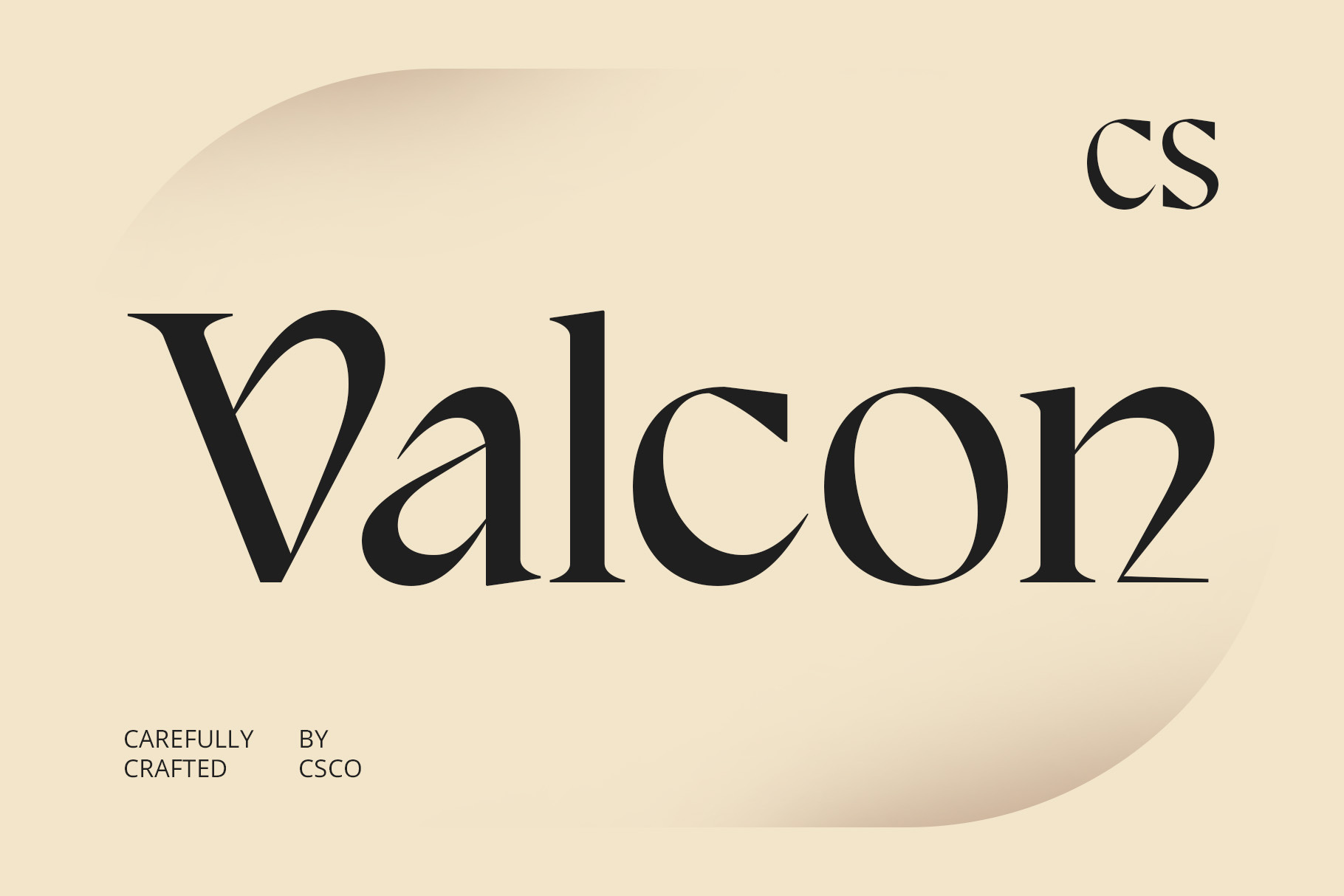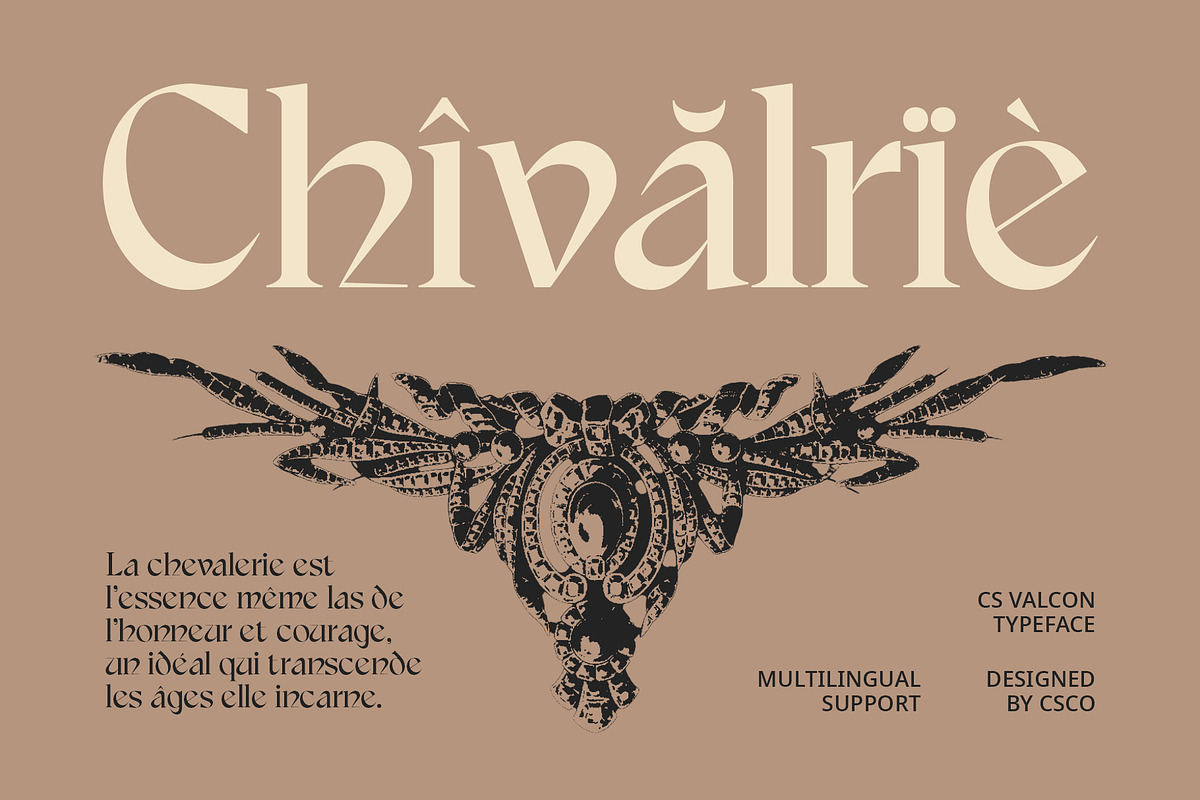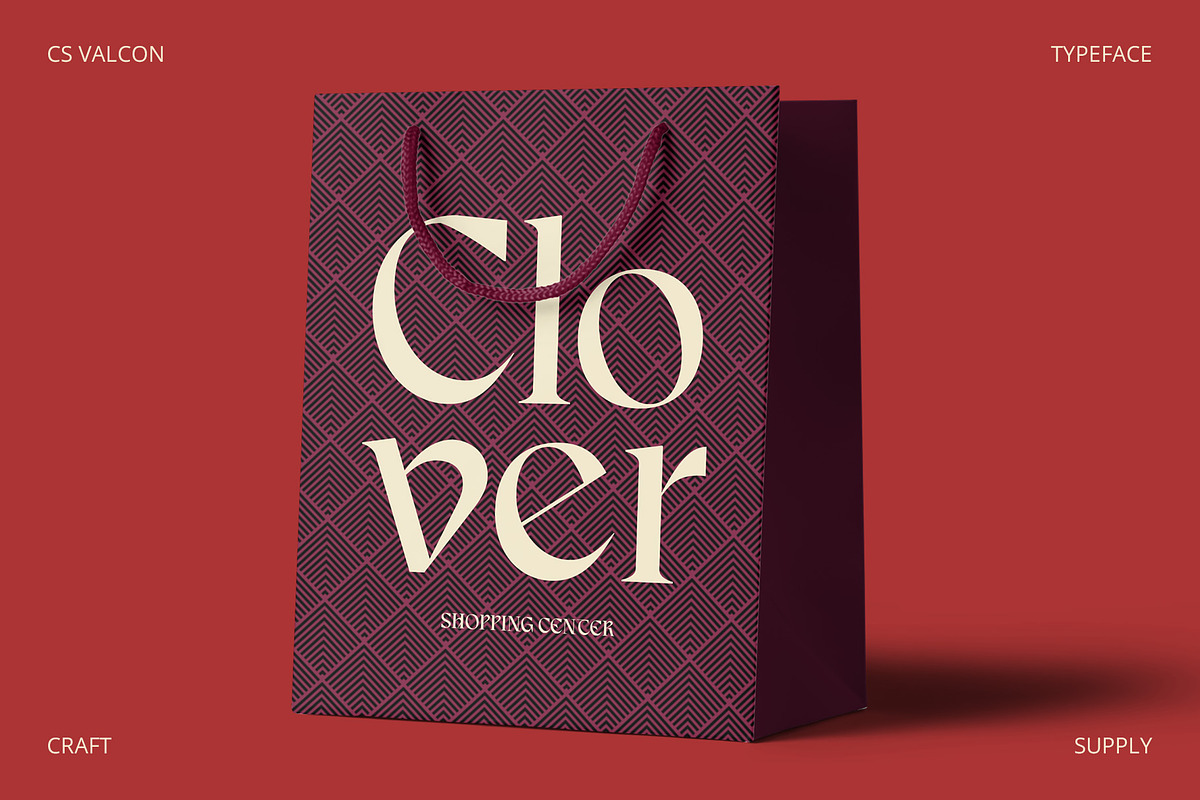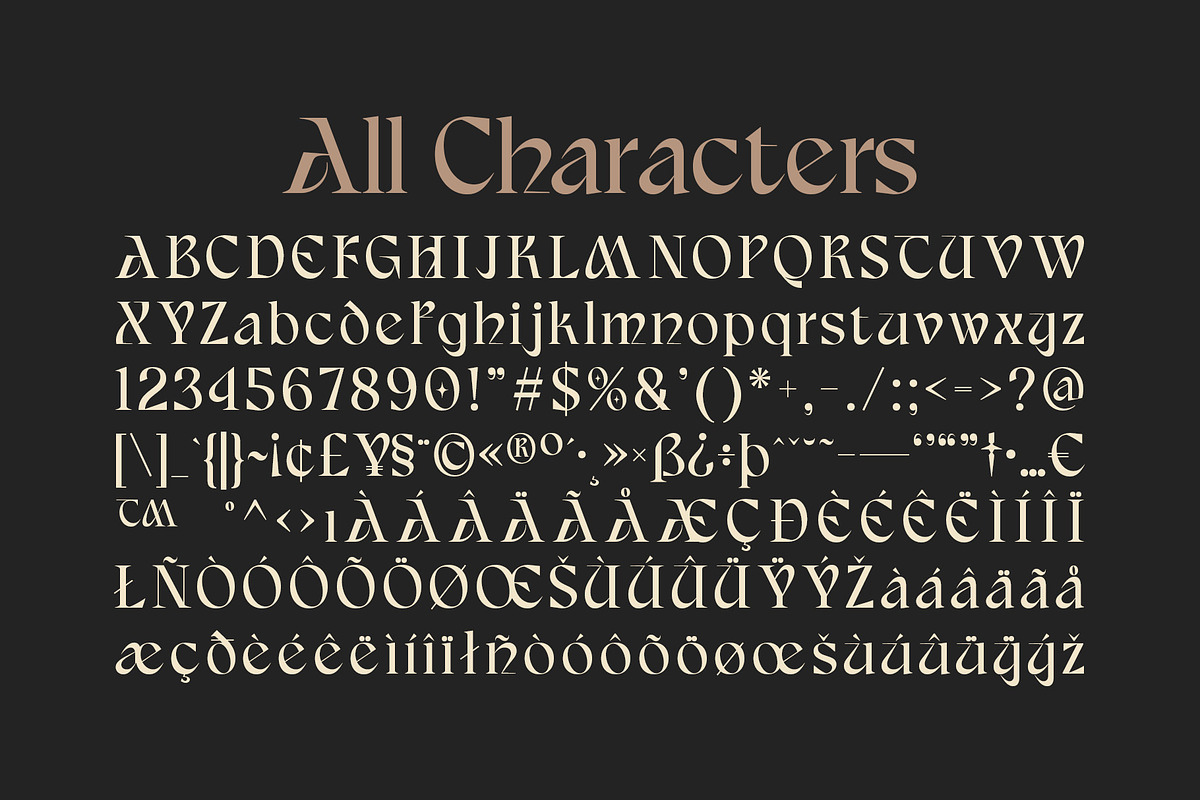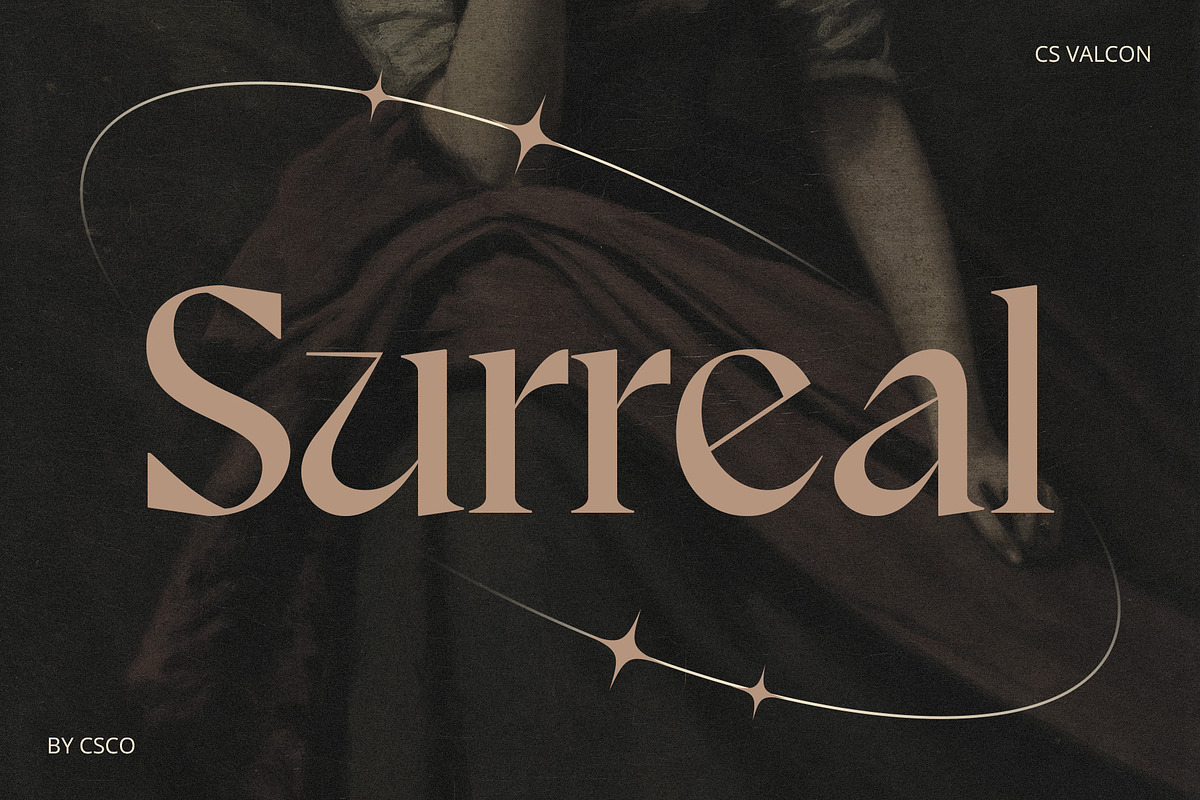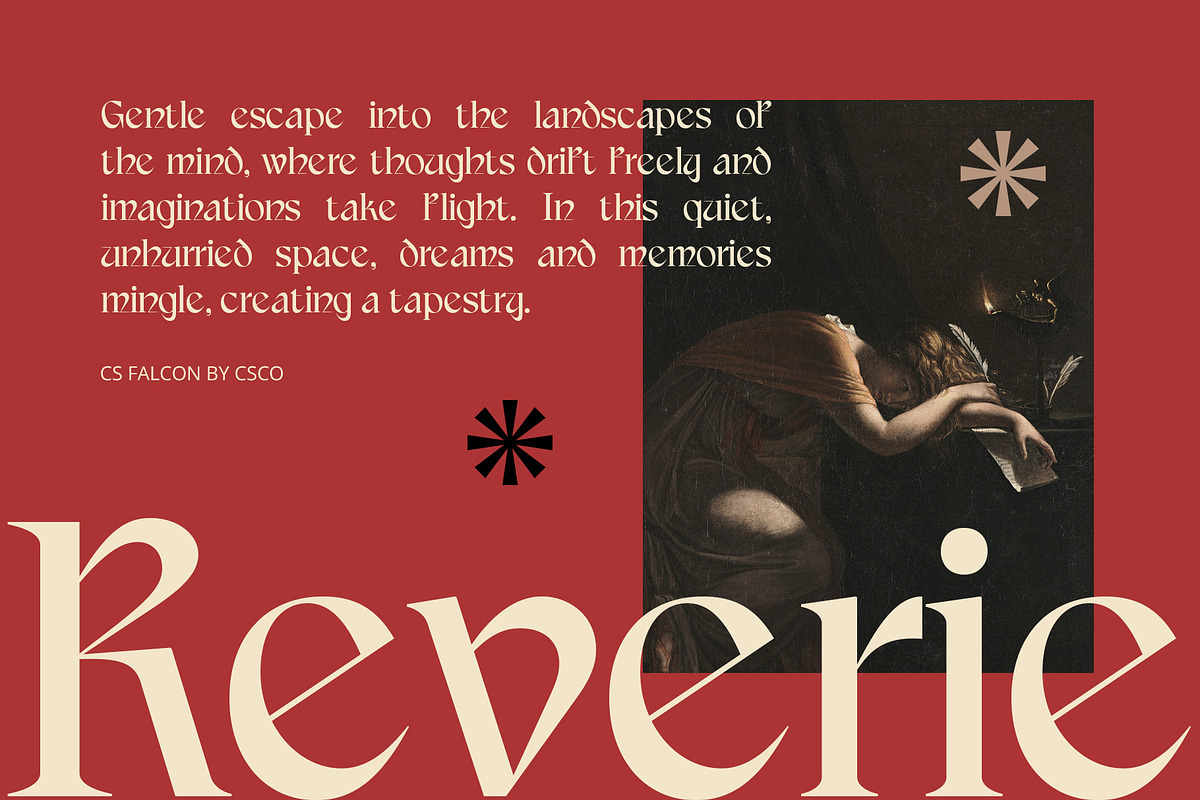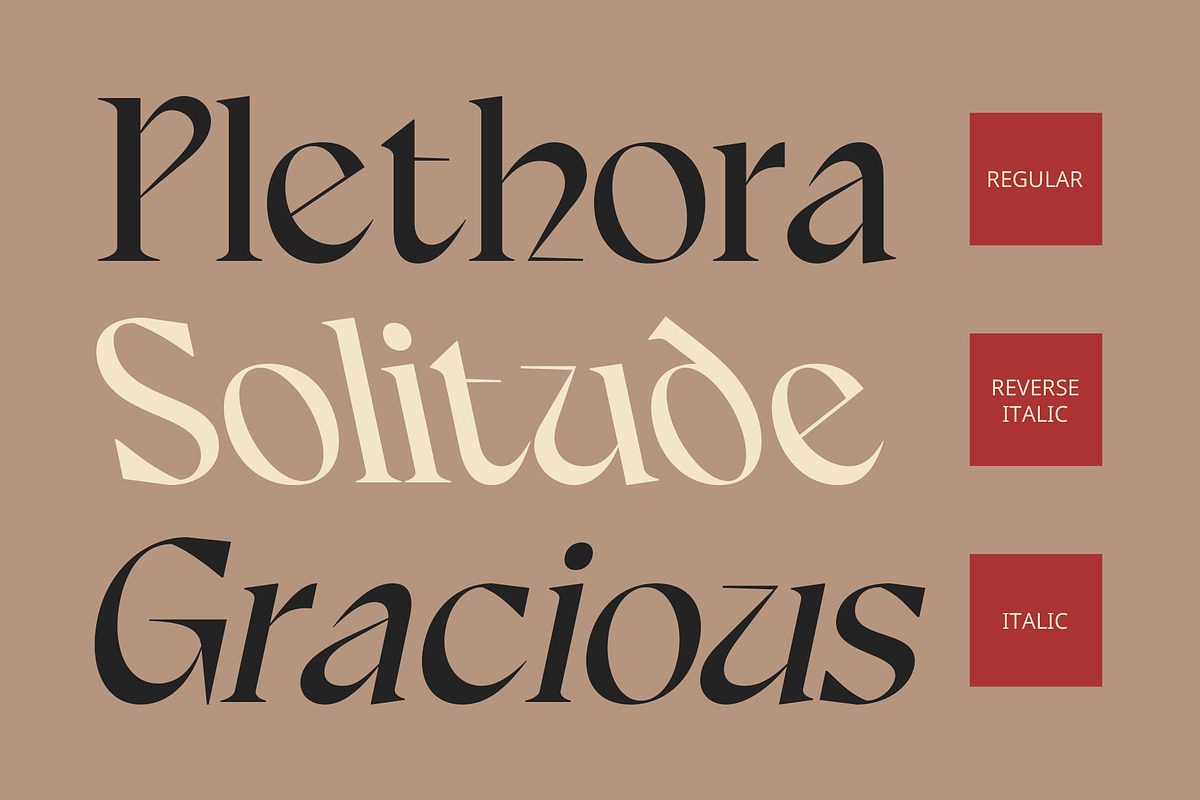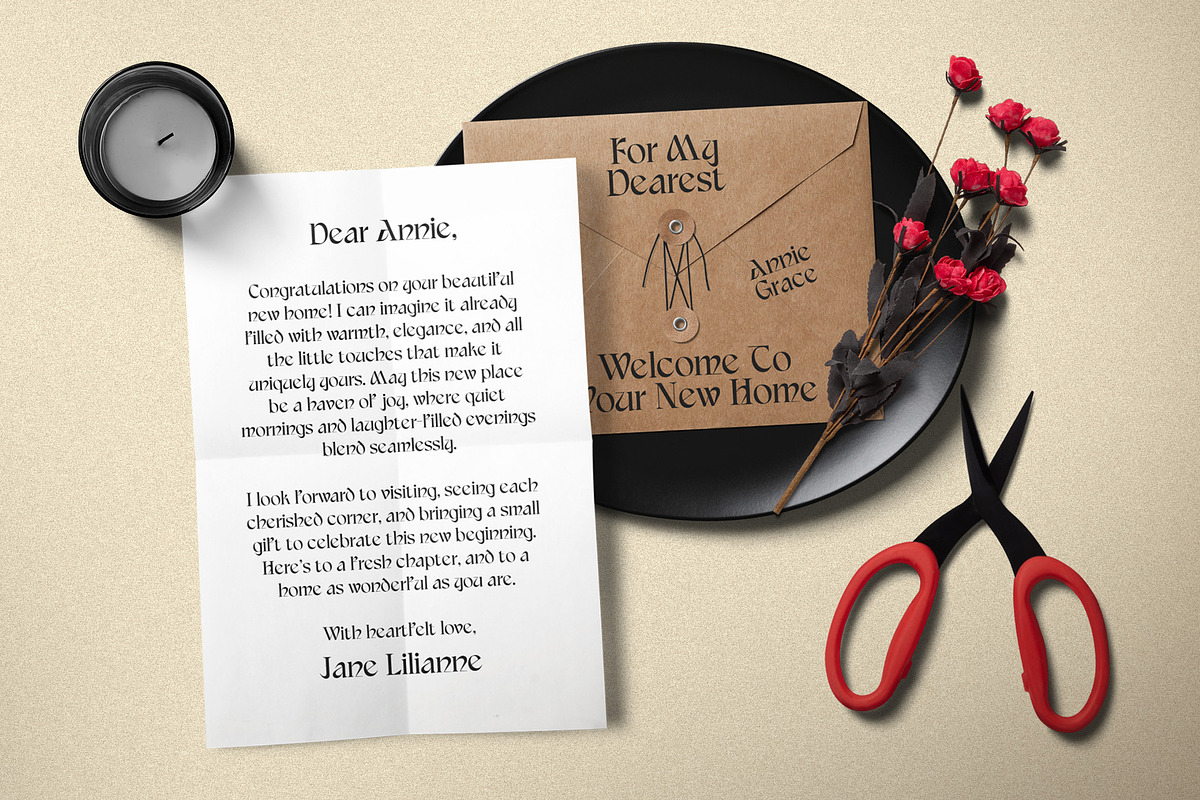
CS Valcon – Uncial Font
CS Valcon – Uncial Font: A Timeless Elegance Rooted in History
Classic Uncial Display Serif Font CS Valcon is a classic uncial display serif font that draws inspiration from the art of medieval handwriting. Its distinctive letterforms feature rounded shapes and a smooth, flowing design, creating a warm and inviting aesthetic that resonates with history and tradition. Each character is meticulously crafted to embody the elegance and artistic beauty of the uncial style, making it a standout choice for any design project.
Artful Design with Decorative Elements The design of CS Valcon includes charming decorative elements that enhance its visual appeal while maintaining the graceful flow characteristic of uncial typography. Gentle curves and balanced proportions are hallmarks of this font, giving it a sophisticated and formal impression. This careful balance between form and function makes CS Valcon not only visually striking but also highly legible across various applications.
Versatile Applications for Nostalgic Charm CS Valcon is well-suited for a diverse range of applications, particularly those that require a touch of nostalgia and elegance. Whether used for formal invitations, literary publications, or branding endeavors, this font elevates the overall design by adding a classic touch that resonates with audiences. Its unique style is perfect for conveying messages steeped in tradition while still appealing to contemporary sensibilities.
- CS Valcon Regular
- CS Valcon Italic
- CS Valcon Reverse Italic